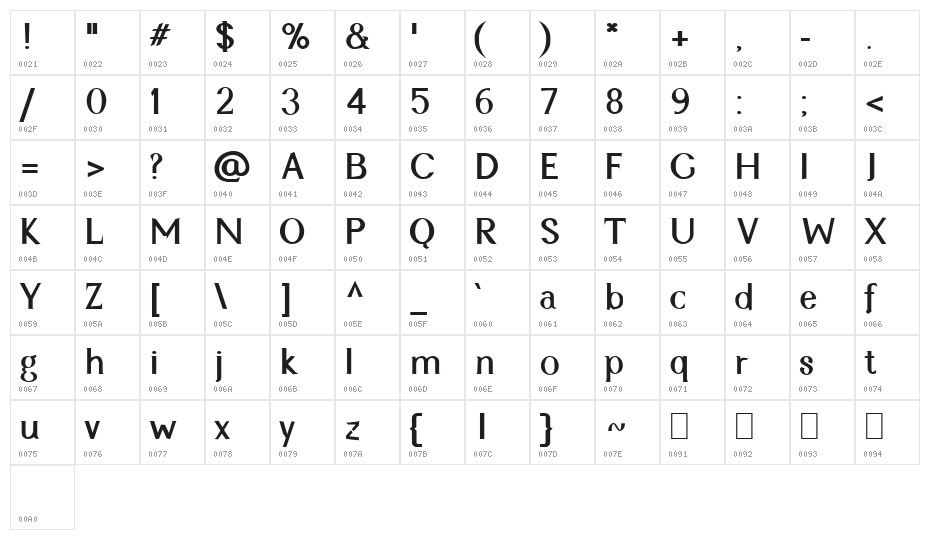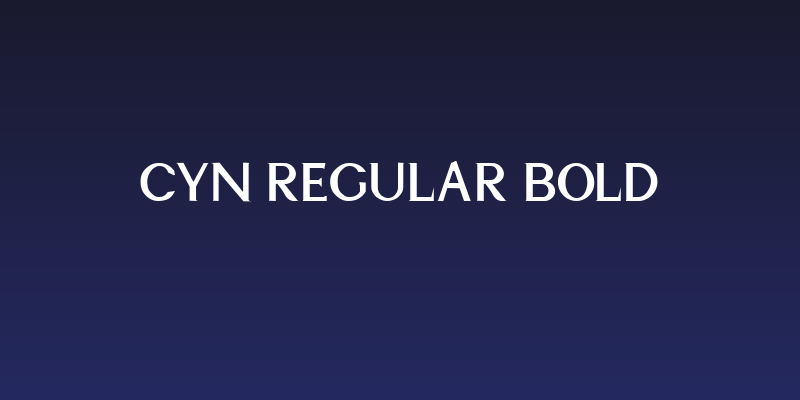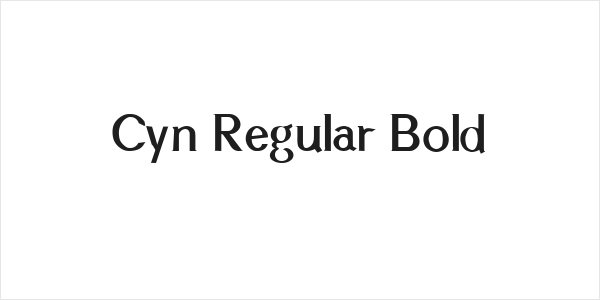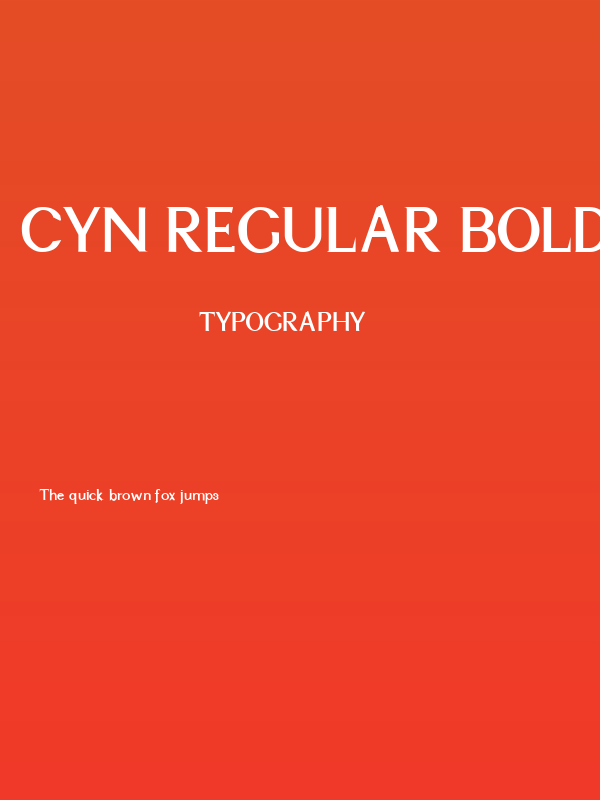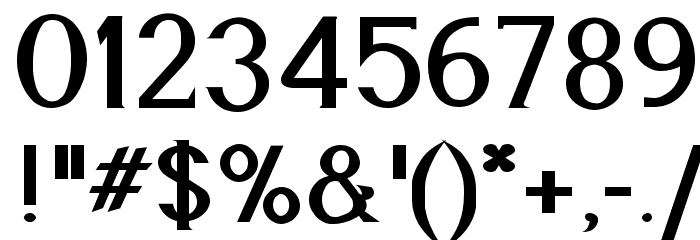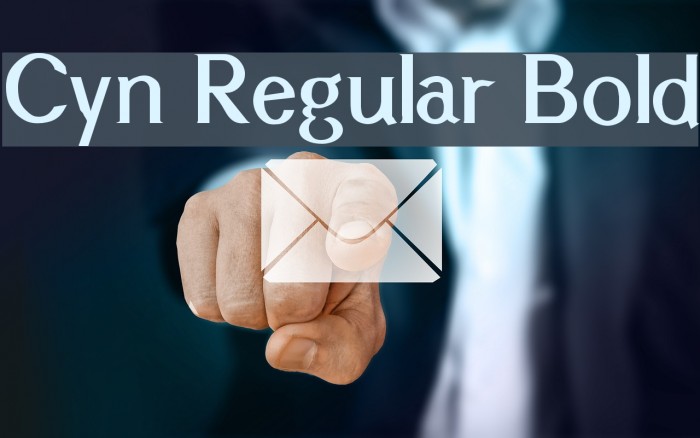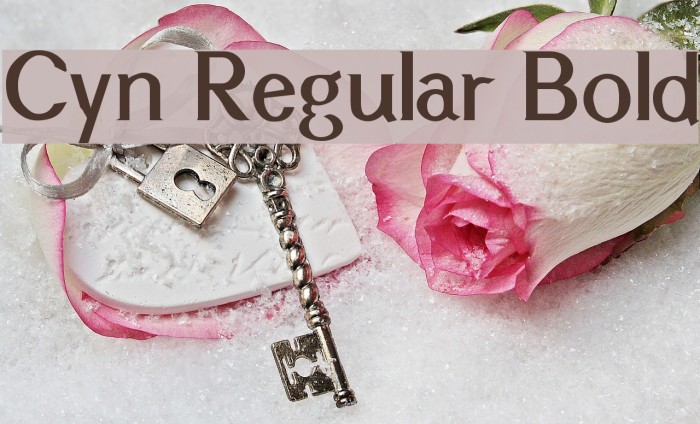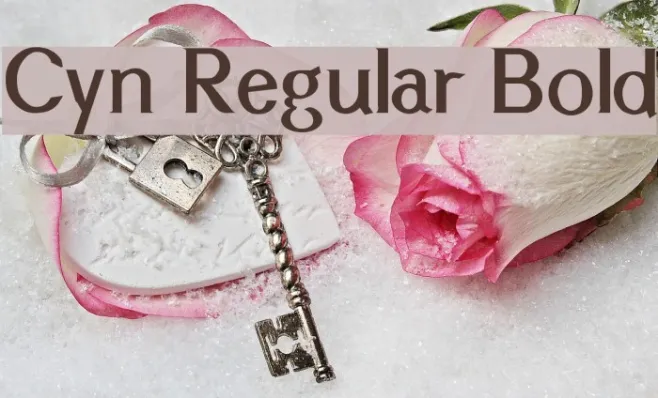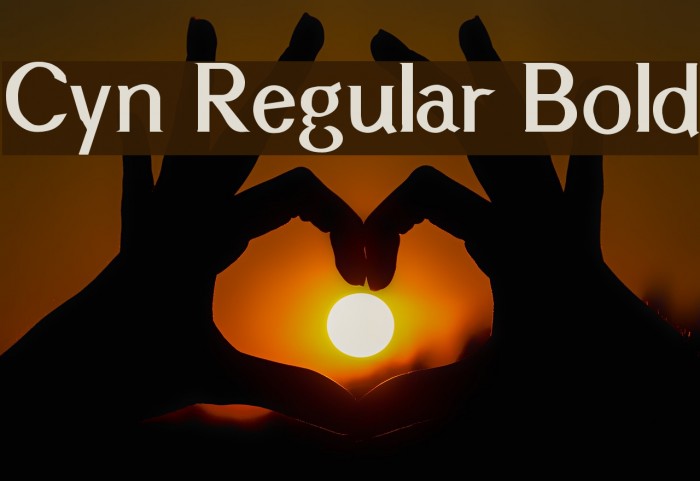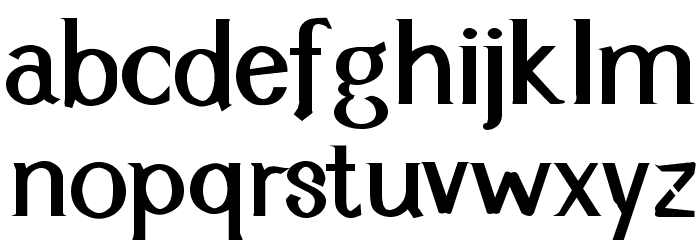
Cyn Regular Bold Font
Cyn Regular Bold Description
This font exhibits a classic serif style with bold, pronounced strokes that convey a sense of authority and elegance. The uppercase letters are well-defined with sharp serifs, while the lowercase letters maintain a consistent flow with slightly rounded edges. The numerals are clear and balanced, making them easily readable. Special characters are distinct and harmonize well with the overall design, ensuring versatility in various applications. The font's boldness is complemented by a medium contrast in stroke thickness, providing a robust yet refined appearance.
| Use Case | Headlines, Logos, Editorial design |
| Proposed Projects | Ideal for editorial design, book covers, formal invitations, and branding projects that require a touch of sophistication. |